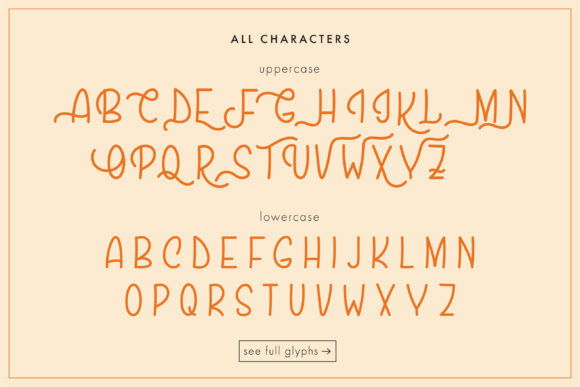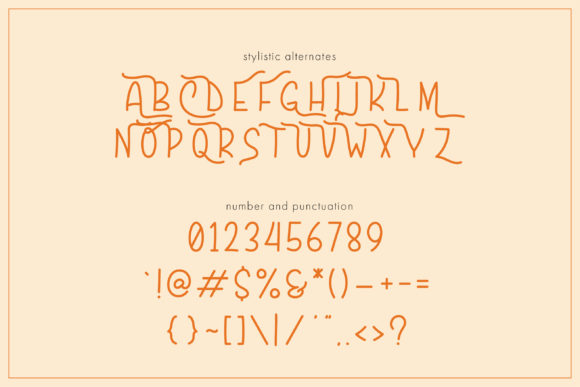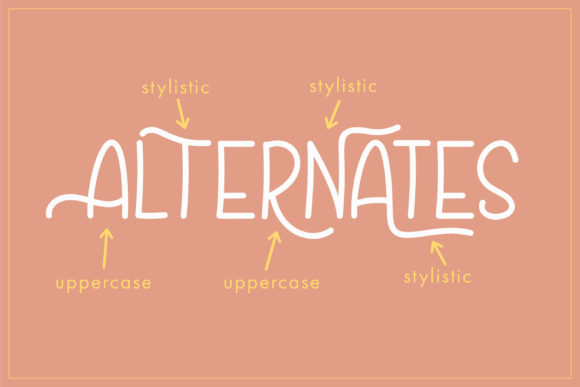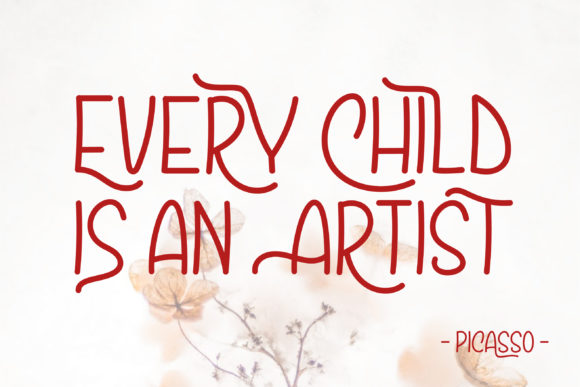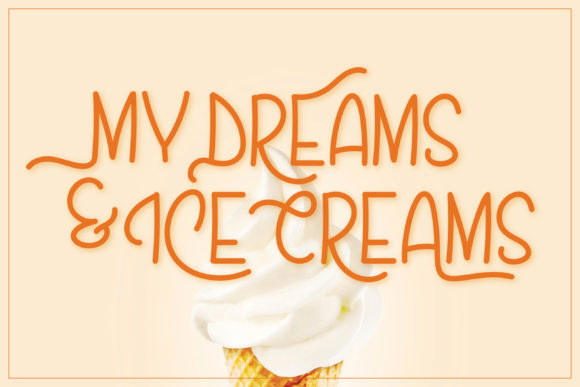
The Perfect Touch for Your Design
Have you ever been working on a design project, and just as you think you’ve nailed the color scheme and layout, something’s missing? That’s where the magic of typography comes in. The right font can elevate your design from good to great, and that’s exactly what the Bochiel Font is designed to do.
Bochiel is a light and casual display font that’s perfect for adding a unique touch to your design projects. Its beautiful feel and stylish flair make it an instant head-turner, and its versatility means it can be used in a wide range of applications, from branding and advertising to digital media and more.
As a designer, you know how valuable it is to have a reliable font in your toolkit. That’s why Bochiel Font is a must-have for any creative project.
Bochiel Font Key Features
- Font Family: Bochiel Font is a sans-serif font family designed for digital use.
- Font Size: Bochiel Font is designed to be highly legible at font sizes ranging from 8 to 24 points.
- Resolution: Optimized for high-resolution displays, suitable for use at resolutions up to 300 DPI.
- Unique Characteristics: Bochiel Font features a unique blend of modern and geometric elements, with a focus on clarity and readability.
Bochiel Font Review
Overall, I found the Bochiel Font to be an interesting addition to any design project. Here’s a balanced review of its strengths and weaknesses.
- Unique and distinctive letterforms that can add a touch of sophistication to designs.
- Good legibility, especially at larger font sizes, making it suitable for headings and titles.
- The font’s versatility allows it to work well in various contexts, from modern and sleek to vintage and elegant.
- May not be ideal for body text due to its relatively low x-height, which can make reading challenging at smaller font sizes.
- The font’s irregularities and unique features may not appeal to those who prefer more traditional or straightforward typography.
Despite its limitations, the Bochiel Font is a great choice for designers looking to add a touch of personality and flair to their projects. Its strengths and versatility make it a valuable addition to any design toolbox.
Tips for Getting the Most Out of Bochiel Font
Bochiel Font is ideal for creating elegant and sophisticated designs. To get the most out of it, use it for:
- Corporate branding and marketing materials
- High-end product packaging and labels
Bochiel Font is commonly used for:
- Body text for formal documents
- Logos and branding elements
Alternatives to Bochiel Font
Montserrat is a modern sans-serif font designed for digital use. It is a great alternative to Bochiel Font for designers who want a clean and minimalist look. Montserrat is ideal for titles, headings, and body text in digital interfaces, websites, and mobile apps.
Comparison to Bochiel Font: Montserrat has a more geometric and industrial feel compared to Bochiel Font’s rounded edges. Montserrat is more versatile and suitable for a wide range of digital applications.
Inter is a highly legible sans-serif font designed for digital use. It is a great alternative to Bochiel Font for designers who want a modern and sophisticated look. Inter is ideal for titles, headings, and body text in digital interfaces, websites, and mobile apps.
Comparison to Bochiel Font: Inter has a more neutral and balanced feel compared to Bochiel Font’s rounded edges. Inter is more suitable for long blocks of text and is a great choice for digital publications and news websites.
Open Sans is a clean and modern sans-serif font designed for digital use. It is a great alternative to Bochiel Font for designers who want a friendly and approachable look. Open Sans is ideal for titles, headings, and body text in digital interfaces, websites, and mobile apps.
Comparison to Bochiel Font: Open Sans has a more rounded and approachable feel compared to Bochiel Font’s sharp edges. Open Sans is more suitable for digital interfaces and websites that require a friendly and approachable tone.
Lato is a modern sans-serif font designed for digital use. It is a great alternative to Bochiel Font for designers who want a
Project Ideas Using Bochiel Font
Project 1: Retro-Inspired Travel Poster
Create a visually striking travel poster that transports viewers to a bygone era. Bochiel Font’s unique, hand-crafted feel will perfectly capture the essence of vintage travel posters.